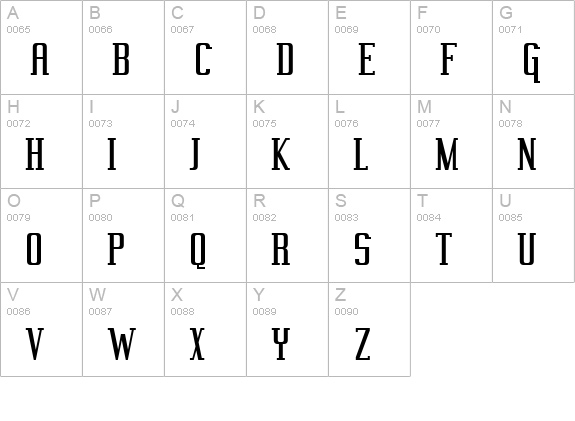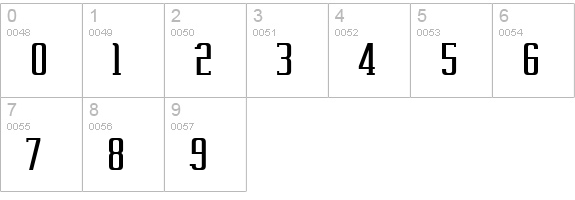
Vahika Font Details
Vahika font is a stunning typeface that combines elegance and modernity, making it perfect for a wide range of design projects. With its unique and intricate letterforms, this font is sure to capture attention and add a touch of sophistication to any design. Vahika font is not only visually appealing, but it also offers versatility like no other. Whether you're designing a logo, creating a poster, or working on a branding project, this font will effortlessly adapt to your needs. The clean lines and balanced proportions of Vahika font make it highly legible, ensuring that your message is conveyed clearly and effectively. What sets Vahika font apart is its availability for free. That's right, this incredible font can be freely downloaded at FontsMarket.com. You no longer have to worry about breaking the bank to access high-quality and visually captivating fonts. FontsMarket.com provides a vast collection of free fonts, and Vahika font is among the gems you can find there. With Vahika font, you have the freedom to create stunning designs without any limitations. Its wide range of weights and styles allows you to experiment and find the perfect fit for your project. Whether you're looking for a bold and eye-catching headline or a subtle and elegant body text, Vahika font has got you covered. Don't miss out on the opportunity to enhance your designs with the beauty and versatility of Vahika font. Download it for free at FontsMarket.com and let your creativity flow. Elevate your design game and make a lasting impression with this exceptional typeface.